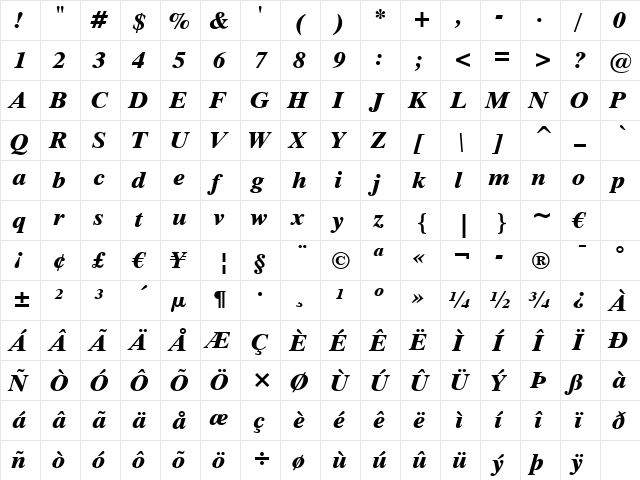
Dutch801 XBdIt BT Extra Bold Italic Font Preview
Design Context for Dutch801 XBdIt BT Typeface
Dutch801 XBdIt BT takes a measured approach to typography — its balanced proportions and neutral character make it a reliable workhorse for both digital and print work. The slanted form adds forward momentum and visual energy. The heavy weight commands attention and anchors typographic hierarchies.
Pro Tip: Try Dutch801 XBdIt BT for annotation and caption copy alongside an upright companion — the contrast in angle creates a dynamic but ordered typographic system.